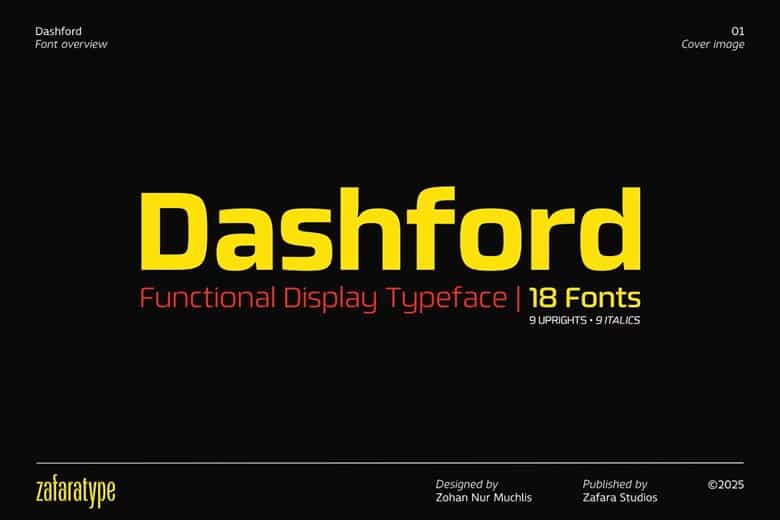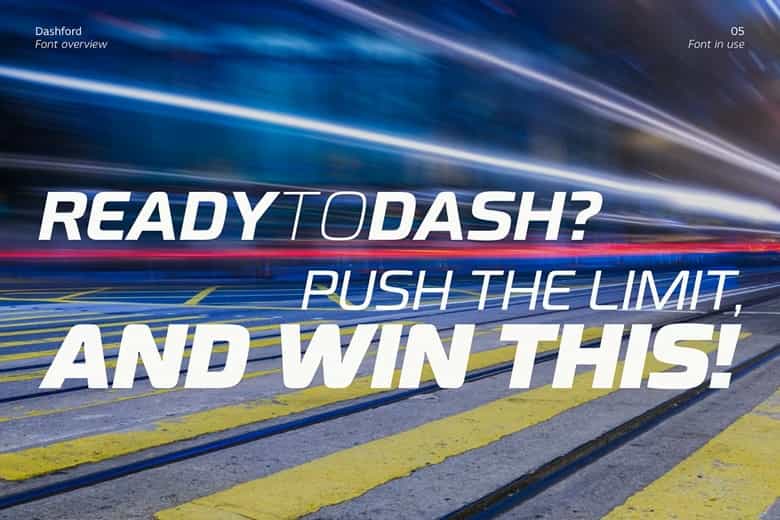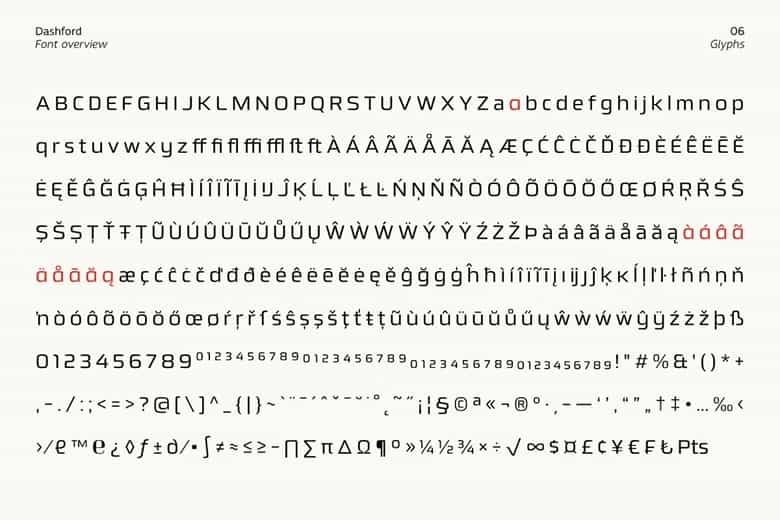
Dashford is a modern sans serif font devoted to simplicity and cut to the bone. Dashford exudes a professional tone but never feels frosty or harsh in appearance with its crisp format and assertive style. It also works very well in many uses from spellbinding headlines to quickly readable body copy. With nine upright weights and nine matching italics, Dashford is fully flexible in assembling consistent, responsive design systems.